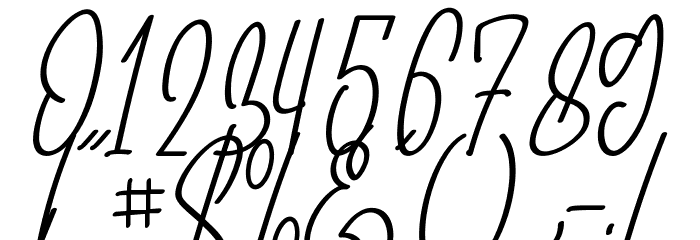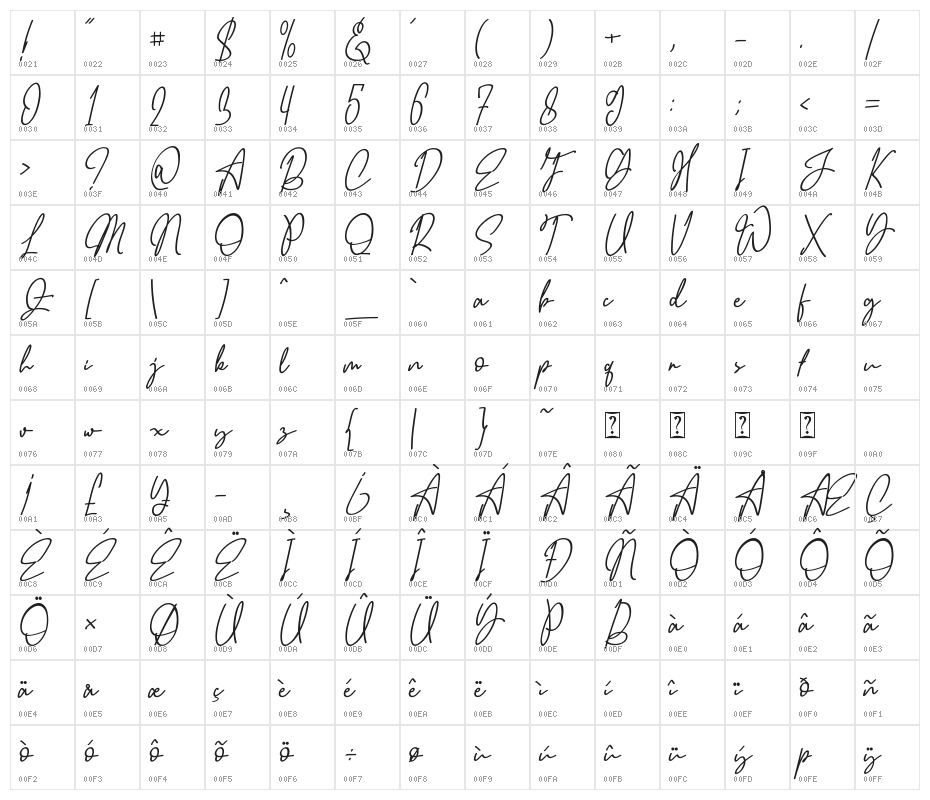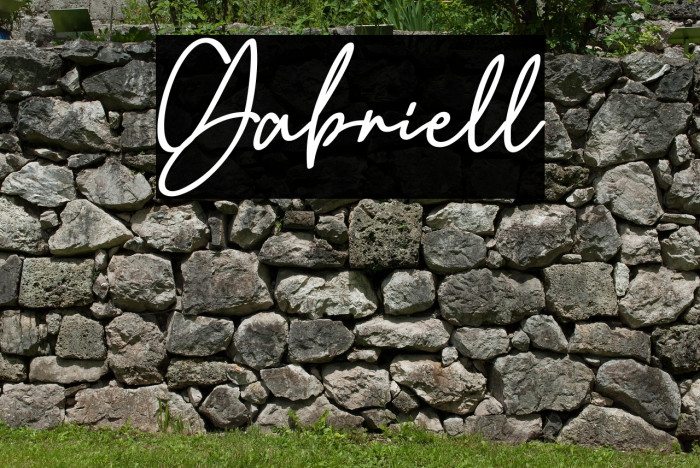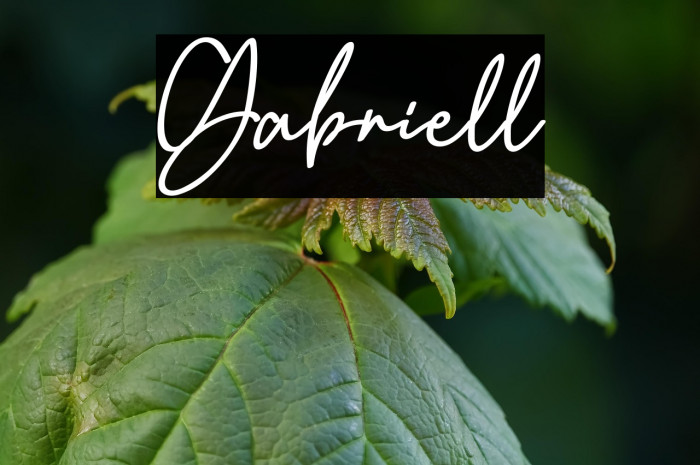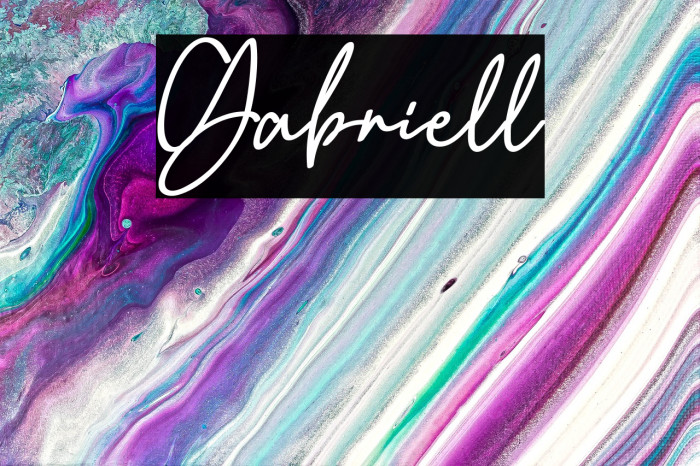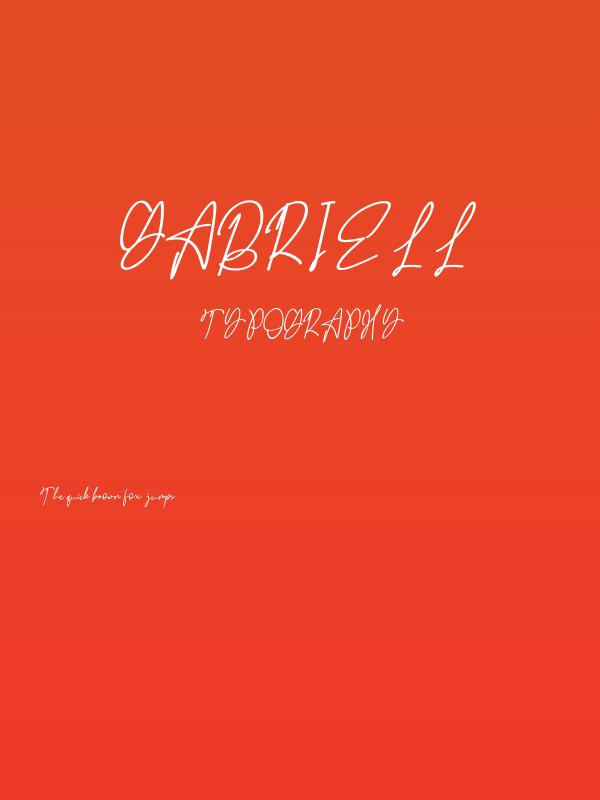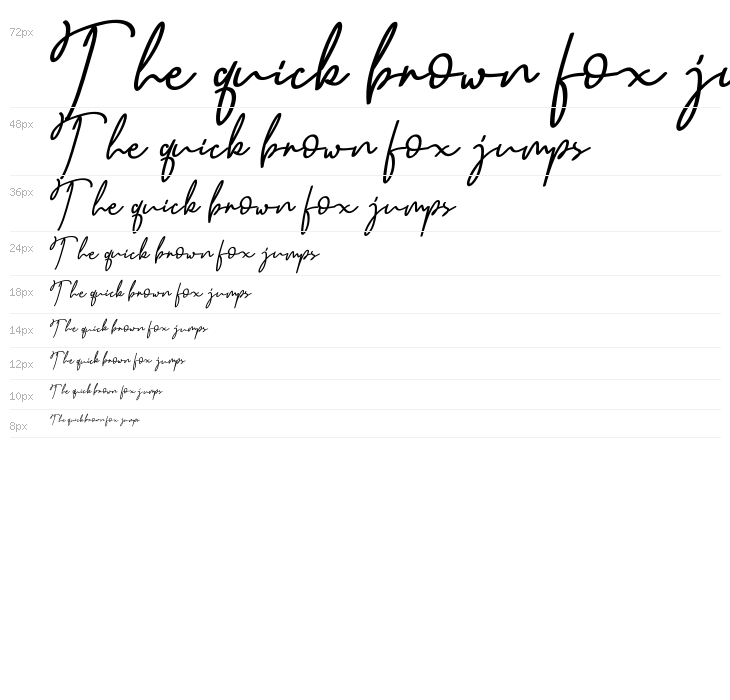
Gabriell Font
Gabriell Description
This elegant script font features a flowing, cursive style with smooth, connected strokes that give it a sophisticated and graceful appearance. The uppercase letters are tall and slightly slanted, while the lowercase letters maintain a consistent flow, enhancing readability. The numerals and special characters are designed with the same fluidity, ensuring a cohesive look across all text elements. The font's overall design is reminiscent of traditional calligraphy, making it suitable for formal and decorative applications. Its balanced weight and medium contrast between thick and thin strokes add to its legibility and aesthetic appeal.
| Overall Style | Elegant, Calligraphic |
| Use Case | Invitations, Branding, Decorative Text |
| Proposed Projects | Ideal for wedding invitations, elegant branding, greeting cards, and decorative signage. |